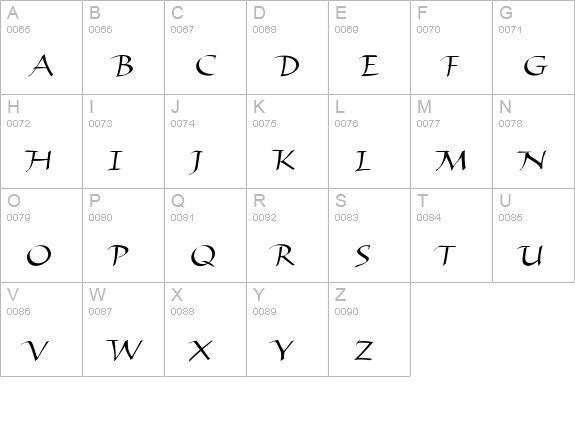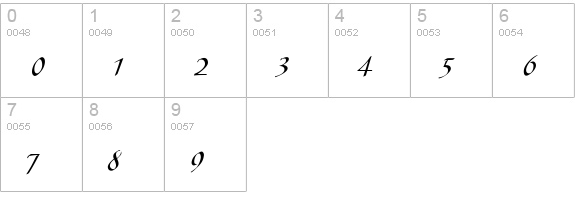
Elli Font Details
Elli font is a modern and stylish typeface that exudes elegance and sophistication. With its clean lines and graceful curves, Elli is perfect for adding a touch of class to any design project. This versatile font can be used for a wide range of applications, from branding to editorial design. What sets Elli font apart is that it is available for free download at FontsMarket.com. This means that you can easily access this beautiful font without any cost, making it a valuable addition to your font library. Whether you're working on a personal project or a commercial endeavor, Elli font is sure to elevate your designs and leave a lasting impression. Download Elli font today and unleash your creativity with this stunning typeface.